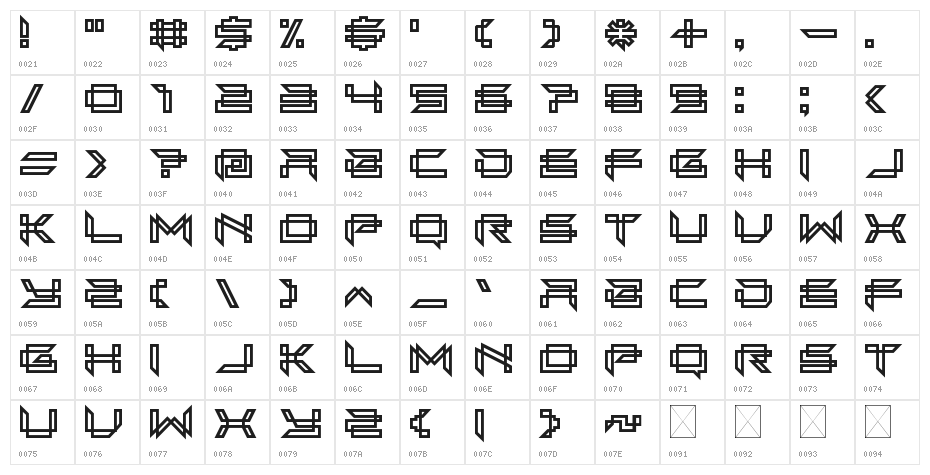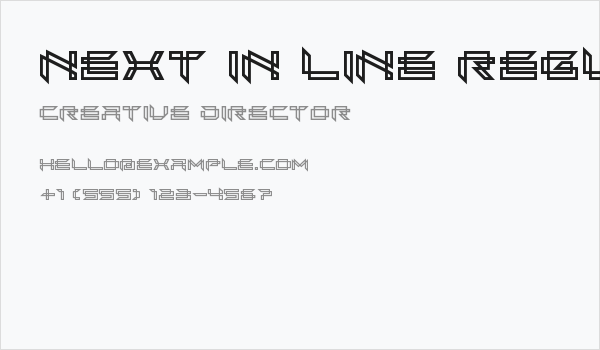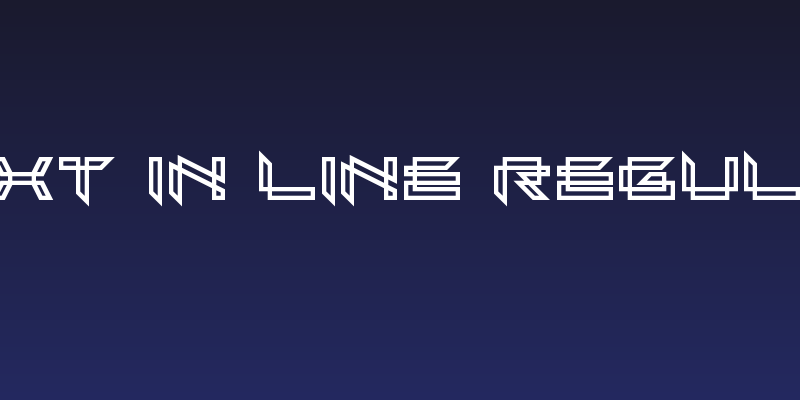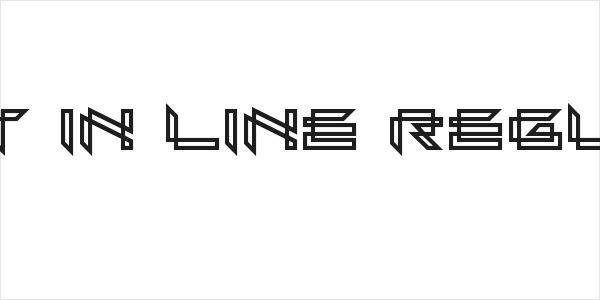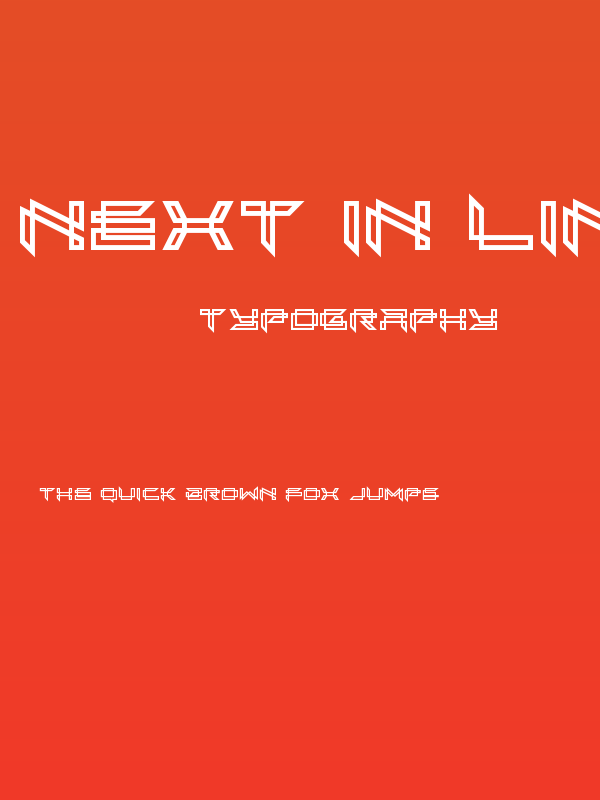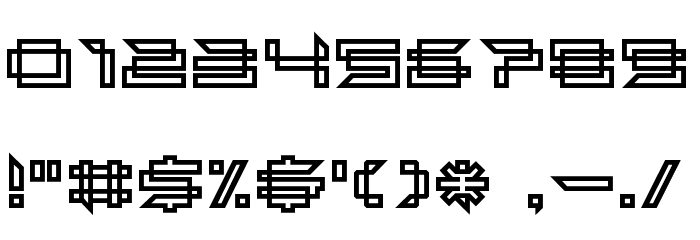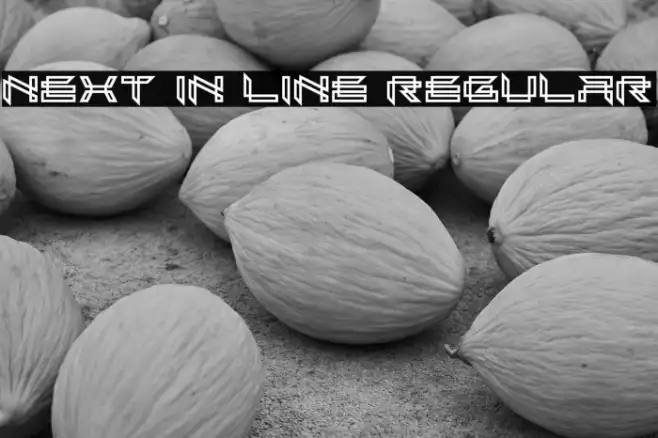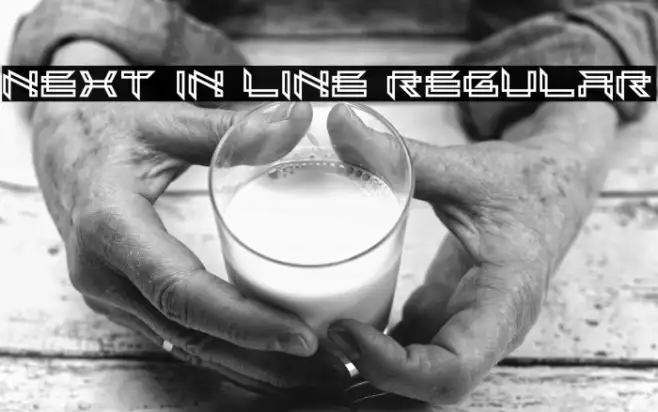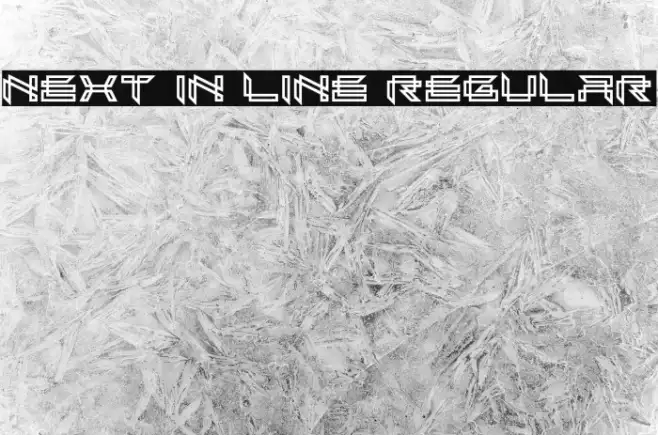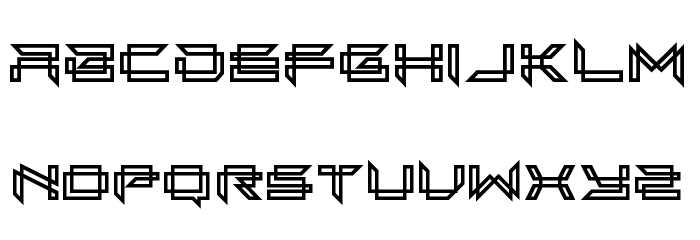
Next In Line Regular Font
Next In Line Regular Description
This font features a futuristic and geometric design, characterized by bold, angular lines and a distinct, maze-like structure. Each character is crafted with sharp edges and a consistent line thickness, creating a cohesive and modern aesthetic. The uppercase and lowercase letters maintain a uniform style, while the numbers and special characters integrate seamlessly with the overall design. The font's unique style makes it ideal for projects that require a contemporary and tech-savvy appearance.
| Proposed Projects | Ideal for technology branding, sci-fi posters, video game titles, and modern digital interfaces. |